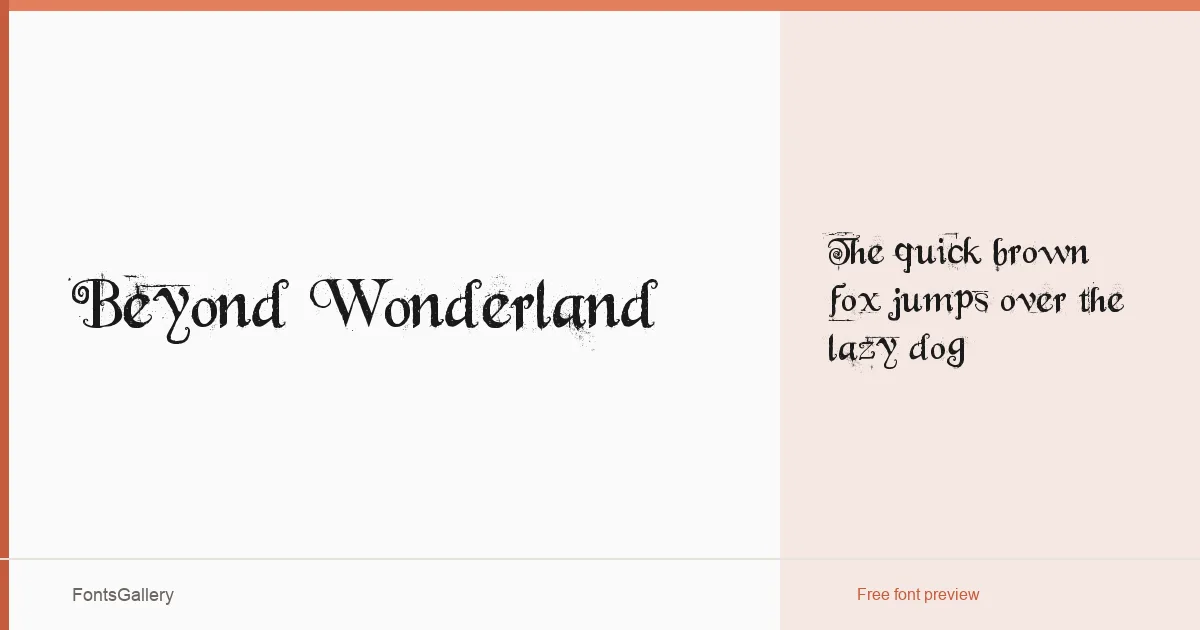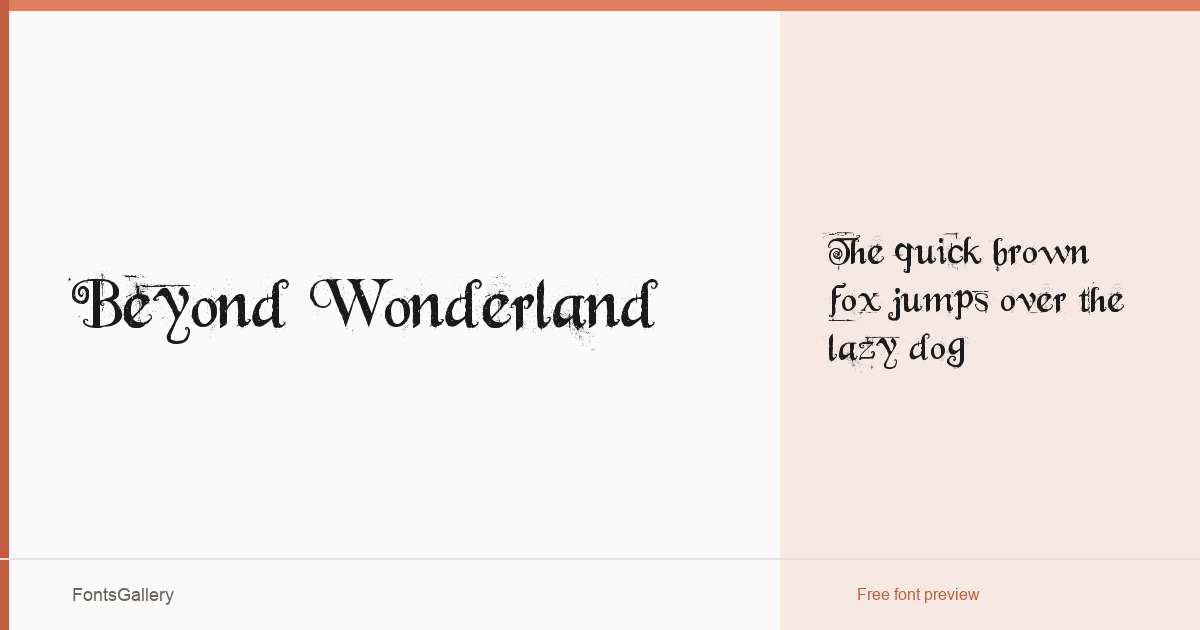
About Beyond Wonderland Font
Beyond Wonderland is a display typeface designed by Chris Hansen, crafted to evoke a sense of timeless elegance and romantic charm. With its distinctive personality, this font draws inspiration from vintage aesthetics and luxury design sensibilities. It is a refined choice for creatives seeking to make a lasting impression across a variety of formal and decorative applications.
Beyond Wonderland features letterforms that embody an elegant, vintage character with a romantic and luxurious feel, making it a natural fit within the display typeface tradition. Its stylized details and graceful curves lend the font an air of sophistication, evoking the grandeur of classic ornamental typography. Each character is crafted to stand out with presence and poise, balancing decorative flair with legibility.
Beyond Wonderland shines in applications such as wedding stationery, invitation cards, book covers, greeting cards, and certificates, where an elevated and refined aesthetic is essential. Its expressive display qualities make it ideal for headline and title use wherever a touch of romance and vintage luxury is desired. For a balanced typographic composition, it pairs beautifully with the clean neutrality of Helvetica or the complementary character of Aresink.